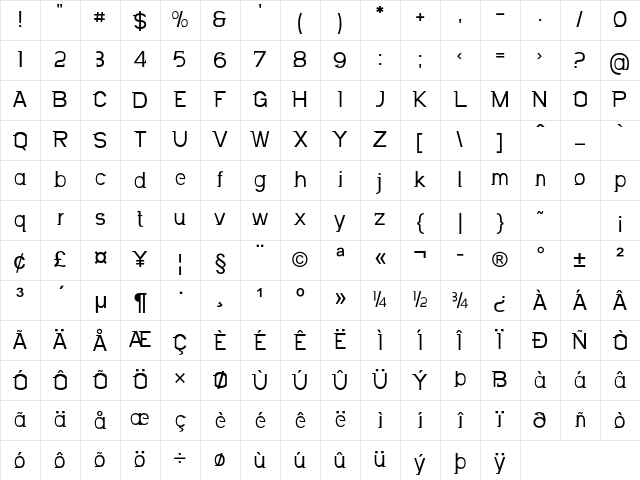
Rendart Regular
Rendart Family
Rendart Regular
Design Context for Rendart
Rendart is a composed and adaptable typeface that performs quietly and consistently across a wide range of design contexts.
Pro Tip: Use Rendart in both headline and body roles to test its range before committing to a single application.